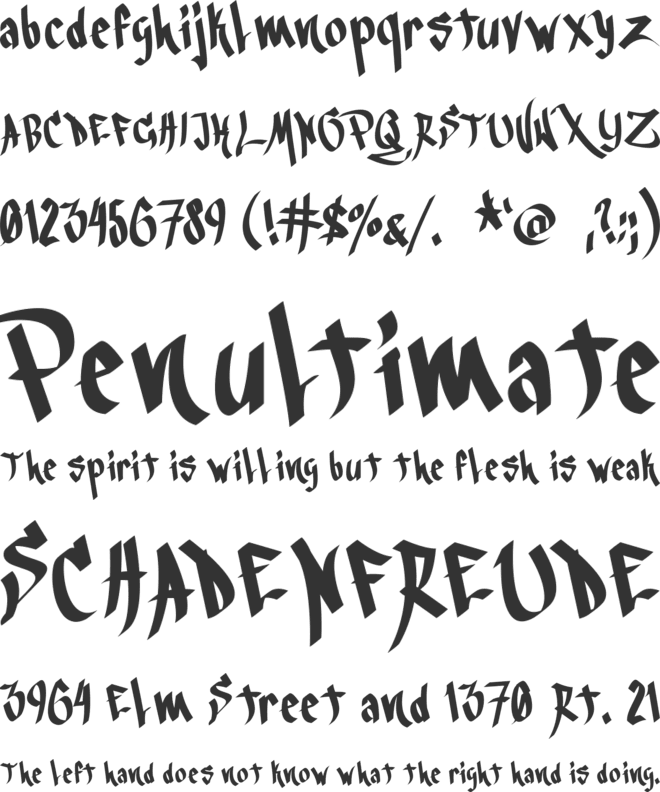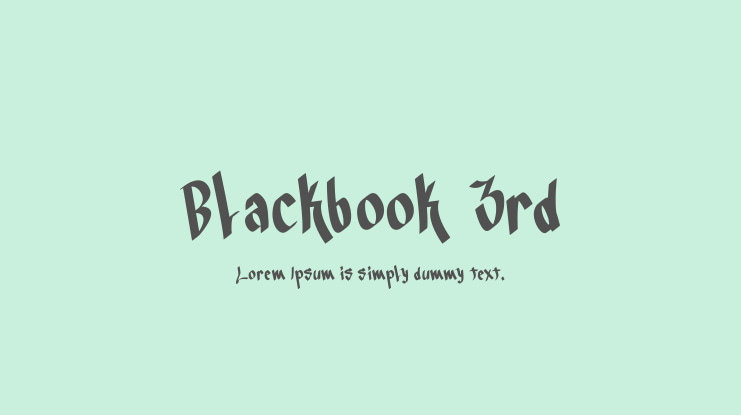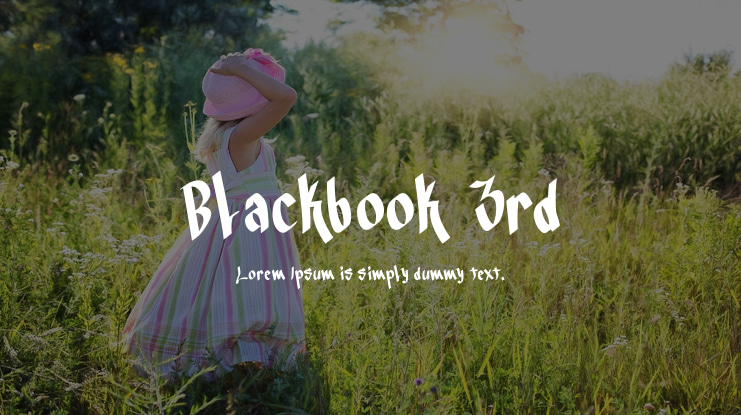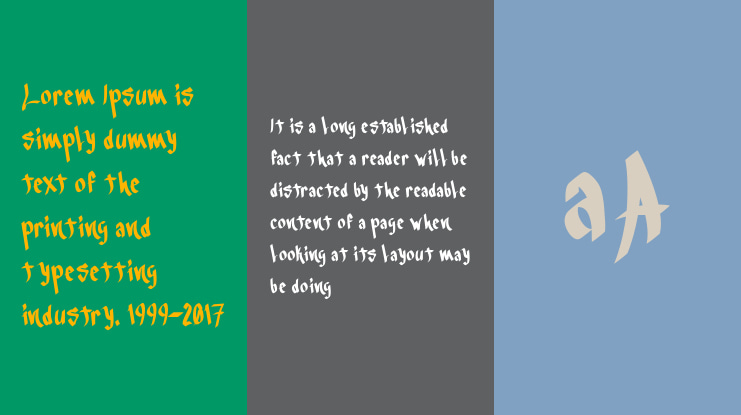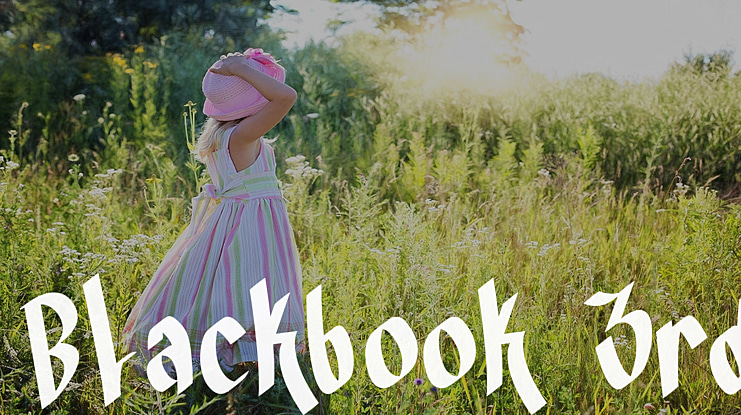
Blackbook 3rd Font
This font is not for the weak, lazy, or faint of heart. There are many great graffiti fonts out there, but some can run you upwards of $200 for a single font family. The Blackbook series, however, is completely free, just like the public art that you see painstakingly sprayed on the walls around town.
Blackbook 3rd is a giant fat tipped marker font that will keep you from getting into the legal trouble of writing on a real wall. This font demands to be cut, resized, eroded, and stretched to fit your graffiti design needs. It even includes many symbols and foreign characters so you can get up in your language of choice.
This font was created for display in the upcoming indie game Don't Look Down.